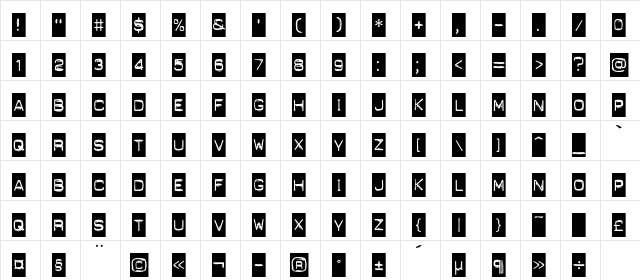
DynamoeC Regular
Design Context for DynamoeC Typeface
DynamoeC offers clean, dependable letterforms without strong stylistic allegiance, making it a practical choice for designers who need flexibility.